NM Type
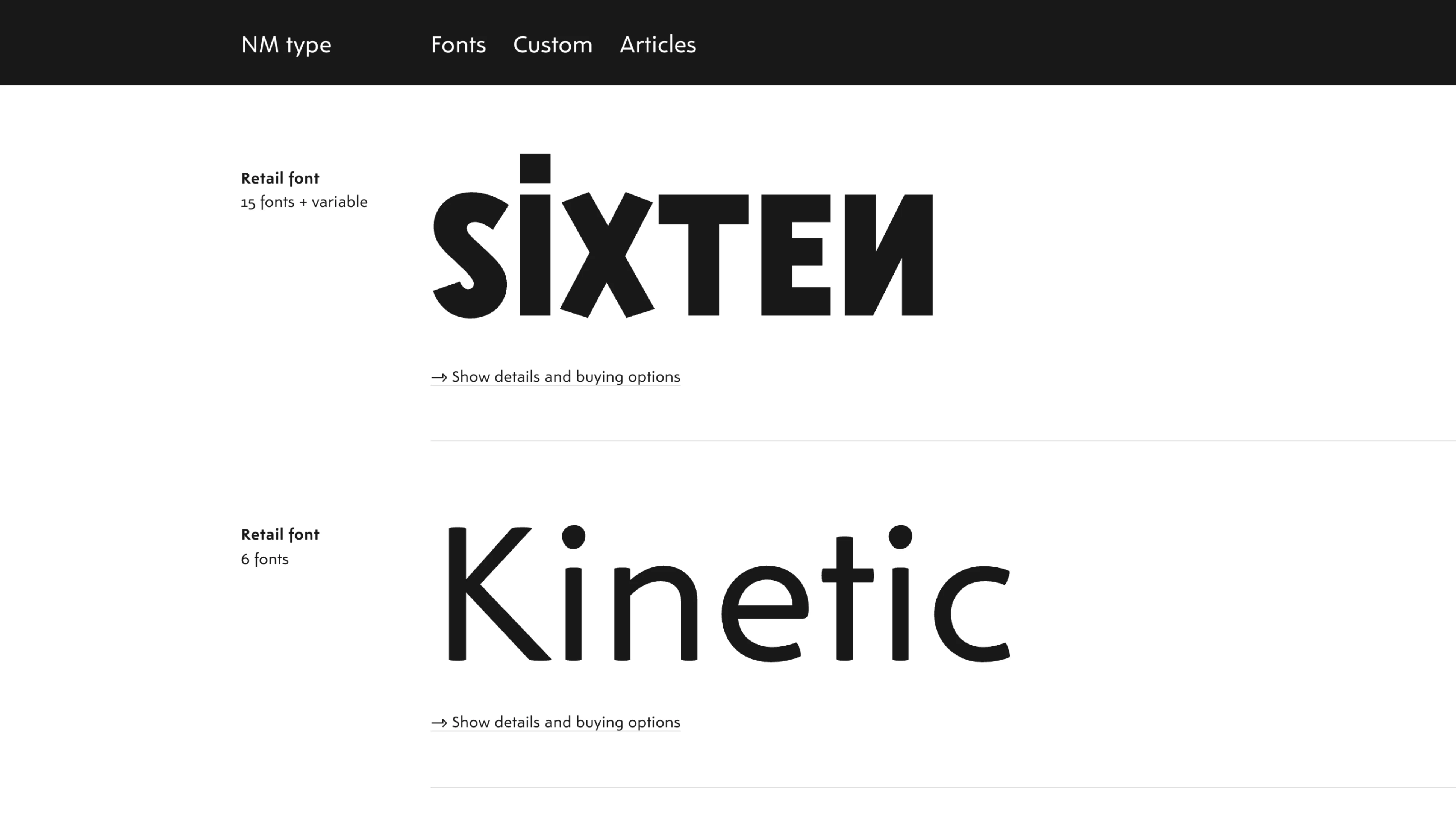
Sweden; Spain
2016
NM Type is an independent type foundry co-founded by Swedish designer Noel Pretorius and Spanish designer María Ramos. Operating from studios in Sweden and Spain, the foundry has been active since at least 2016, marked by the release of its typeface Kinetic. Known for a research-driven and conceptual approach, NM Type creates both retail and custom fonts. Notable releases include Kinetic, inspired by Alexander Calder’s sculptures, and Movement, which draws from the expressive motions of a South African dancer. Additional typefaces like SIXTEN and the in-progress Sastre showcase the foundry’s ongoing commitment to innovation in type design.